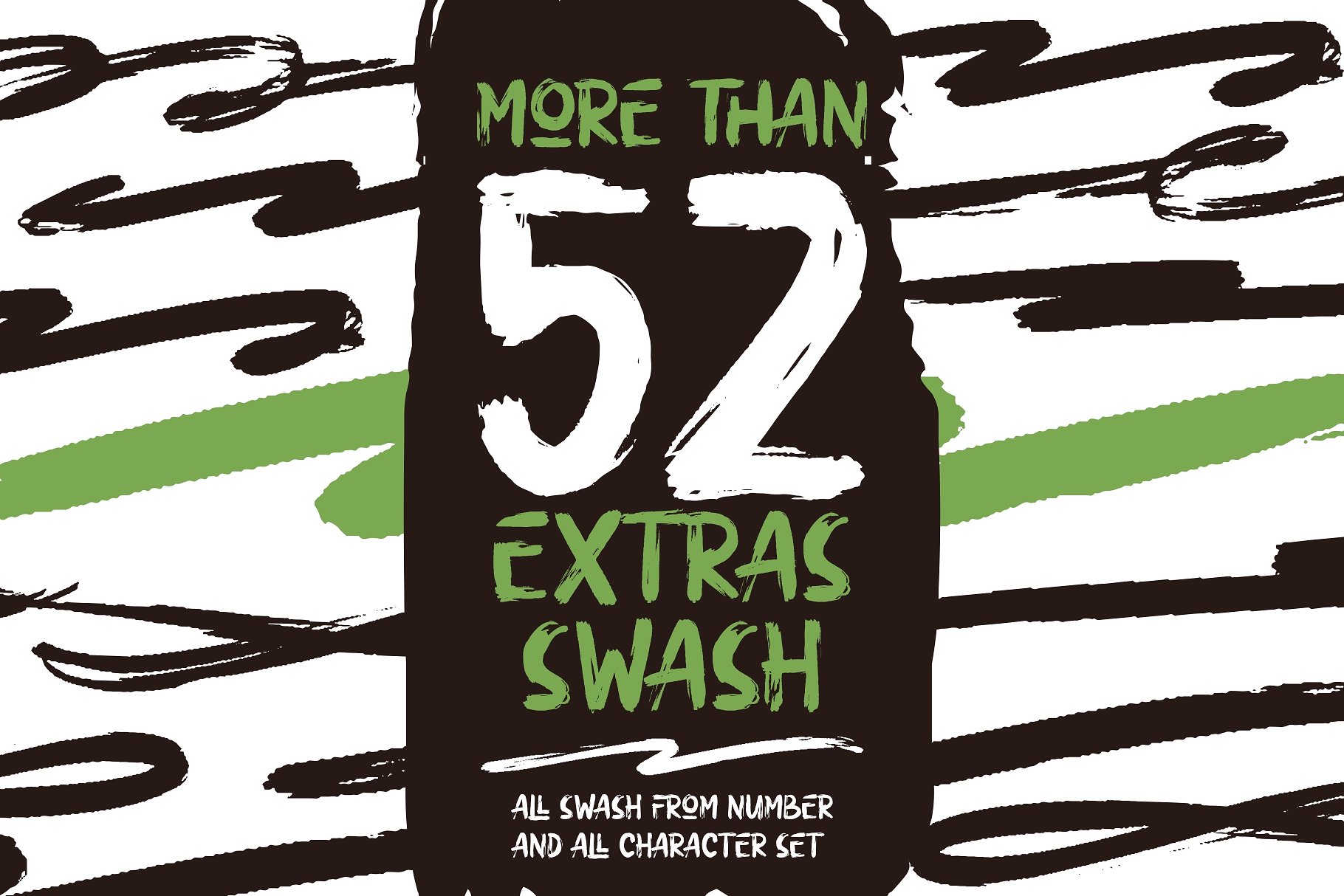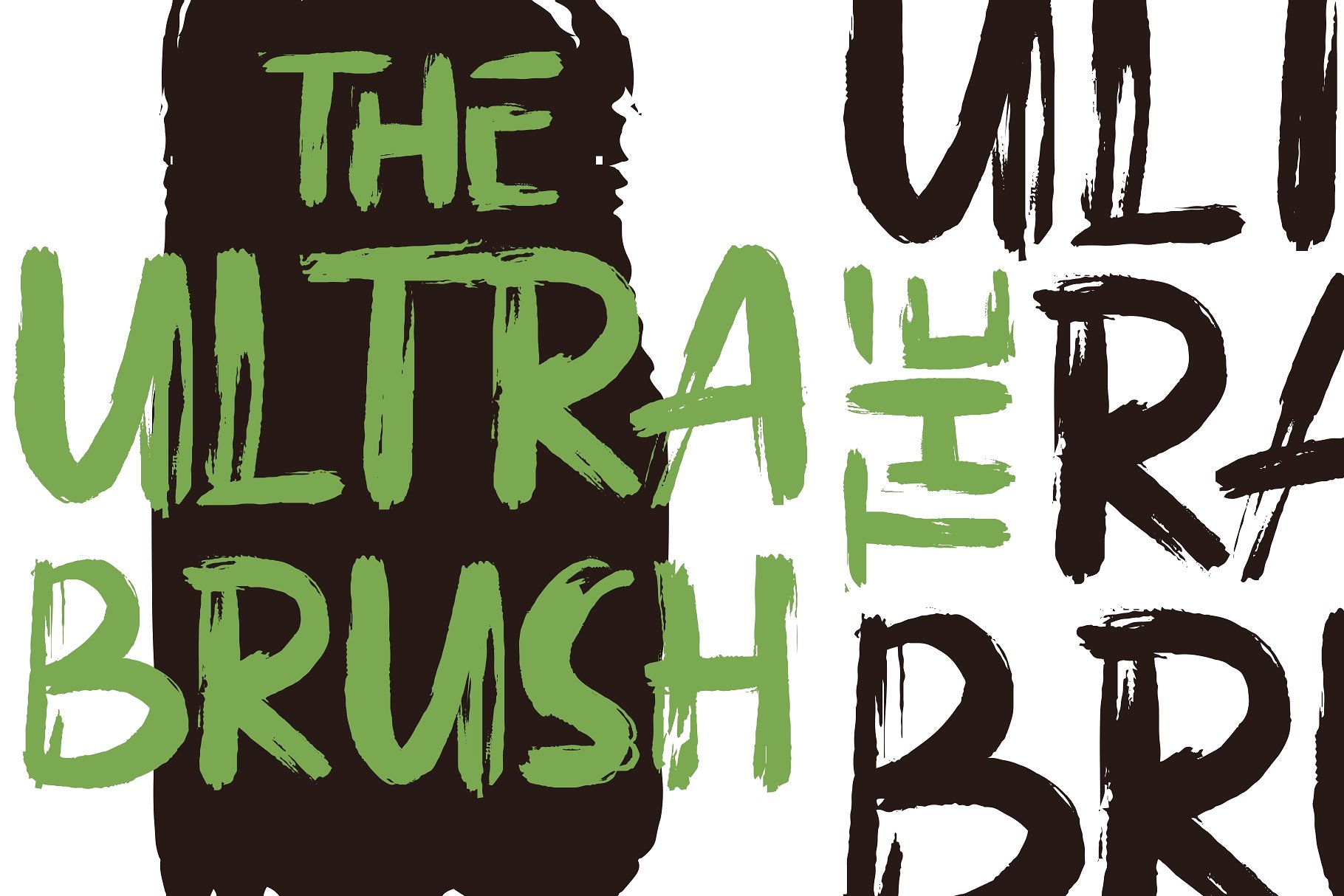
The Ultra Brush Font
The Ultra – This brand new brush font is so versatile that you can use it for just about anything. Perfect for all of your needs and products. The Ultra Font designed and shared by Garisman Std. THE ULTRA was born from the interest of the maker of display fonts that are currently present. By using a natural dry brush, Ultra Brush was born to meet the needs of designers to make posters, tshirt, quotes, branding, packaging, logos, advertise, and etc.